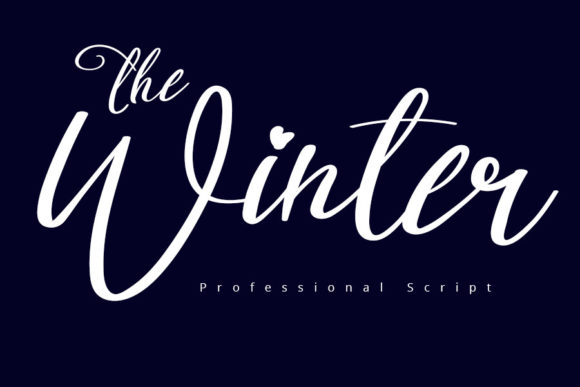
About The Winter Font
The Winter is a simple and flowing handwritten font. This adaptable font will look great on a variety of design ideas. It will add a fun and friendly touch to each of your projects!